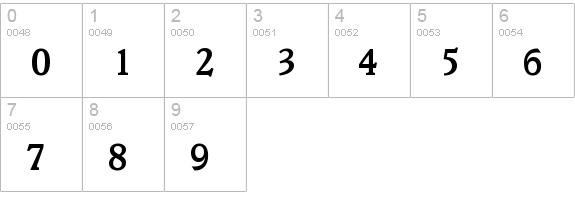
VeroneseMedium Font Details
VeroneseMedium is a timeless font that exudes elegance and sophistication. Its medium weight strikes the perfect balance between boldness and subtlety, making it the ideal choice for various design projects. Whether it's creating eye-catching headlines, designing sleek logos, or crafting engaging marketing materials, VeroneseMedium effortlessly captivates attention. This versatile font showcases a harmonious blend of classic and modern elements, giving it a unique personality that stands out from the crowd. Its gracefully curved letterforms evoke a sense of refinement and grace, while its clean lines and precise geometry add a contemporary touch. The result is a font that embodies both tradition and innovation, making it suitable for a wide range of applications. One of the greatest advantages of VeroneseMedium is that it is freely available to download at FontsMarket.com. This means that designers and creatives can access this exceptional font without any cost, allowing them to unleash their creativity without limitations. Whether you are a professional designer or a hobbyist, VeroneseMedium offers you the opportunity to elevate your projects with its impeccable style. With its generous x-height and well-balanced proportions, VeroneseMedium ensures excellent legibility across various mediums and sizes. This makes it perfect for both print and digital designs, allowing your message to be effectively communicated in any context. Its attention to detail and careful craftsmanship ensure that each character is meticulously designed, creating a seamless and visually appealing typography experience. VeroneseMedium's extensive character set includes uppercase and lowercase letters, numerals, punctuation marks, and special symbols, providing you with the versatility needed to bring your creative visions to life. Its extensive language support ensures that you can confidently use this font for projects targeting different audiences worldwide. In conclusion, VeroneseMedium is a remarkable font that combines timeless elegance with contemporary flair. Its seamless blend of classic and modern design elements, coupled with its wide range of applications, make it a valuable asset for any designer. And the best part? It's all available for free at FontsMarket.com, making VeroneseMedium the perfect font to enhance your next creative endeavor.